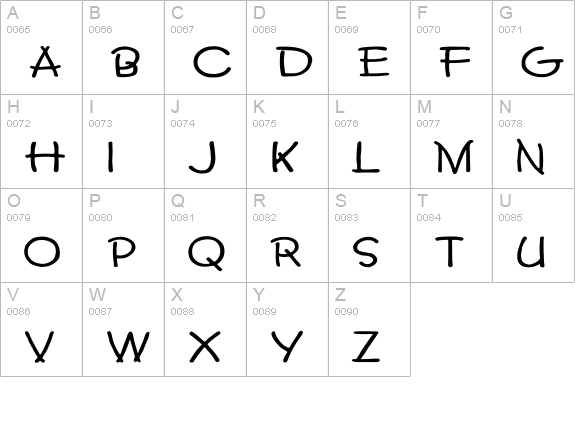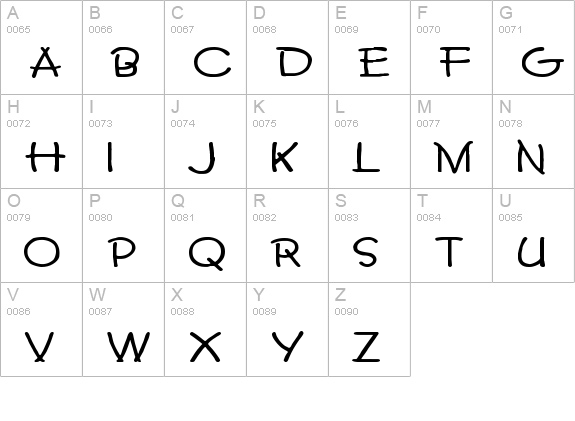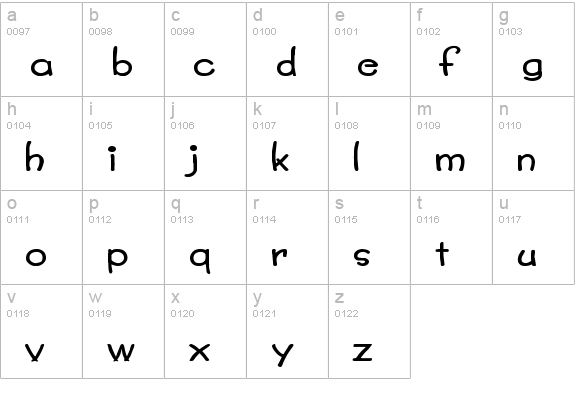
Lumparsky Wd Font Details
Lumparsky Wd is a stylish and modern font that brings a touch of elegance to any design project. With its bold and eye-catching appearance, this font is perfect for creating attention-grabbing headlines, logos, and branding materials. The unique characters and sleek lines of Lumparsky Wd make it a versatile choice for both print and digital designs. Best of all, Lumparsky Wd is available for free download at FontsMarket.com. This means you can easily add this stunning font to your collection without any cost. Whether you're a professional designer or a hobbyist looking to enhance your projects, Lumparsky Wd is a fantastic choice that won't break the bank. Download it today and start creating beautiful designs with this captivating font.